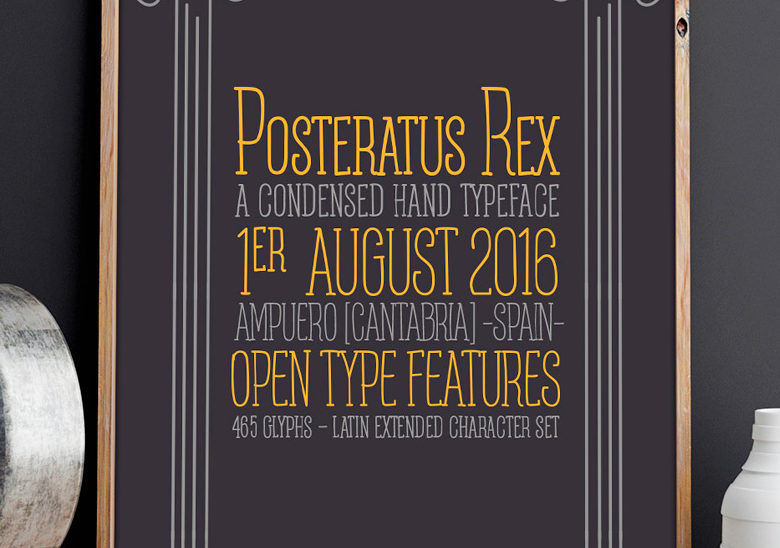
Behold the regal presence of Posteratus Rex, a serif font family that commands attention. Designed by the illustrious Fernando Haro, this condensed masterpiece is meticulously crafted to adorn your posters with an aura of sophistication.
Step into the realm of visual enchantment as Posteratus Rex takes you on an artistic odyssey. Its svelte letterforms exude an air of grace, striking a harmonious equilibrium between readability and elegance. Witness the captivating dance of thin lines and delicate curves, as each character seamlessly transitions into the next, creating a narrative of visual intrigue.
Unleash your imagination and let Posteratus Rex elevate your posters to new heights of artistry. Its refined aesthetic transcends time and trends, effortlessly captivating audiences with its classic beauty. From bold statements to subtle nuances, Posteratus Rex possesses the versatility to articulate your every creative vision.